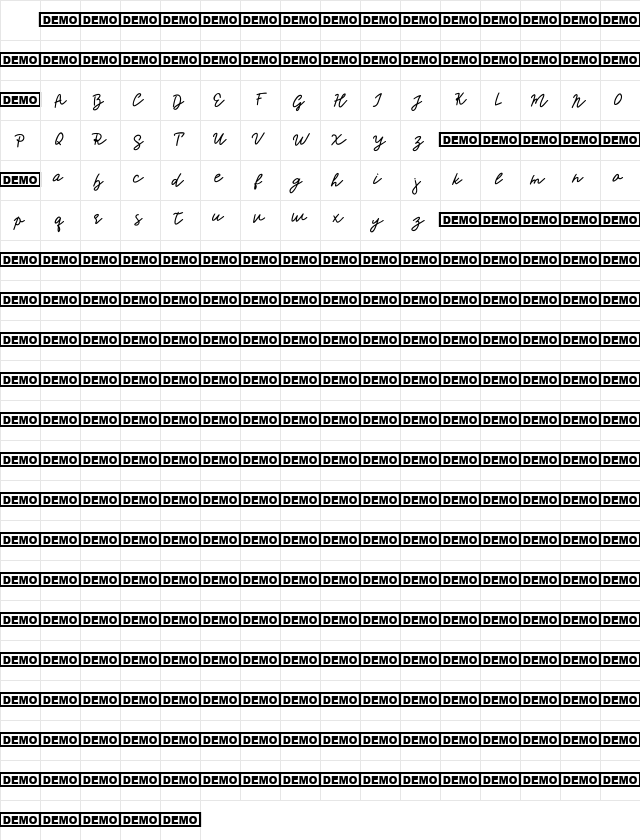
Mr. Monty is a composed and adaptable typeface that performs quietly and consistently across a wide range of design contexts.
Pro Tip: Use Mr. Monty in both headline and body roles to test its range before committing to a single application.